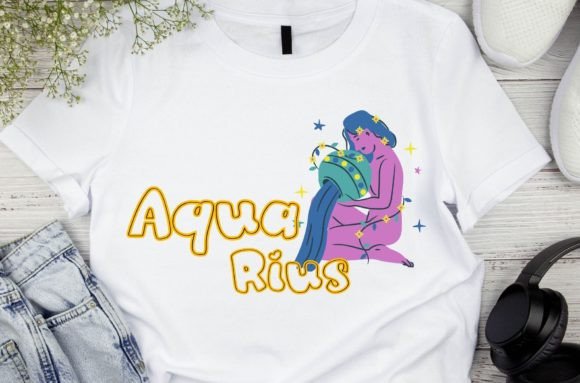
Introducing Chunky Pop Line Font: Elevate Your Designs with a Playful Touch
In the world of digital design, fonts play a crucial role in conveying messages, evoking emotions, and creating visual identities. Among the myriad of font styles available, handwritten fonts have gained immense popularity for their personal touch and unique charm. One such font that has been making waves in the design community is the Chunky Pop Line Font. This versatile, handwritten font is perfect for a wide range of design projects, from logos and branding to wedding invitations, business cards, and more.
What is Chunky Pop Line Font?
Chunky Pop Line Font is a carefully crafted handwritten font that exudes a playful, yet sophisticated vibe. Its chunky lines and modern twist make it an excellent choice for designers looking to add a touch of personality to their work. Whether you’re creating designs for children or adults, this font is sure to make your projects stand out.
Key Features of Chunky Pop Line Font
- Handwritten Style: The font boasts a beautiful, handwritten style that adds a personal touch to any design.
- Chunky Lines: The chunky lines give the font a bold and playful appearance, making it perfect for eye-catching designs.
- Versatility: It can be used for a wide range of projects, including logos, branding, wedding invitations, business cards, greeting cards, posters, magazines, social media, planner prints, and websites.
- Especially Useful for Childrenβs Designs: The playful nature of the font makes it particularly suitable for designs aimed at children, such as kids’ party invitations, educational materials, and children’s book illustrations.
Use Cases for Chunky Pop Line Font
The versatility of Chunky Pop Line Font makes it an invaluable addition to any designer’s toolkit. Here are some of the many use cases for this font:
Logos and Branding
Create a memorable logo or brand identity with Chunky Pop Line Font. Its unique style can help your brand stand out in a crowded market.
Wedding Invitations and Stationery
Add a touch of elegance and playfulness to your wedding invitations, thank you cards, and other stationery with this beautiful font.
Business Cards and Greeting Cards
Make your business cards or greeting cards more personal and engaging with Chunky Pop Line Font.
Posters and Magazines
Whether you’re designing a poster for a event or a magazine cover, this font can add a bold, eye-catching element to your design.
Social Media and Websites
Use Chunky Pop Line Font to create engaging social media graphics, website headers, or blog posts that reflect your brand’s personality.
Planner Prints and Stationery
Personalize your planner prints, journals, or daily planners with this font, making them more visually appealing and fun to use.
T-Shirts, Mugs, and Merchandise
The font’s playful style makes it perfect for designing t-shirts, mugs, posters, and other merchandise that require a bold, eye-catching text.
Why Choose Chunky Pop Line Font?
With so many fonts available, why should you choose Chunky Pop Line Font for your projects? Here are a few compelling reasons:
- Unique Style: Its distinctive handwritten style and chunky lines set it apart from more traditional fonts.
- Readability: Despite its bold nature, the font remains highly readable, making it suitable for both headings and body text.
- Emotional Connection: The personal touch of handwritten fonts like Chunky Pop Line can create an emotional connection with your audience, making your designs more relatable and engaging.
How to Use Chunky Pop Line Font Effectively
To get the most out of Chunky Pop Line Font, consider the following tips:
- Mix and Match: Combine the font with other fonts to create visual interest. Pair it with a simpler font for body text to ensure readability.
- Play with Colors: Experiment with different colors to match your brand’s palette or the mood of your design.
- Adjust Size and Weight: Don’t be afraid to adjust the size and weight of the font to fit different design elements.
Chunky Pop Line Font is a versatile, playful, and highly effective font for a wide range of design projects. Its unique style, readability, and emotional appeal make it an excellent choice for designers looking to add a personal touch to their work. Whether you’re creating logos, branding materials, wedding invitations, or merchandise, this font is sure to elevate your designs and make them come alive.